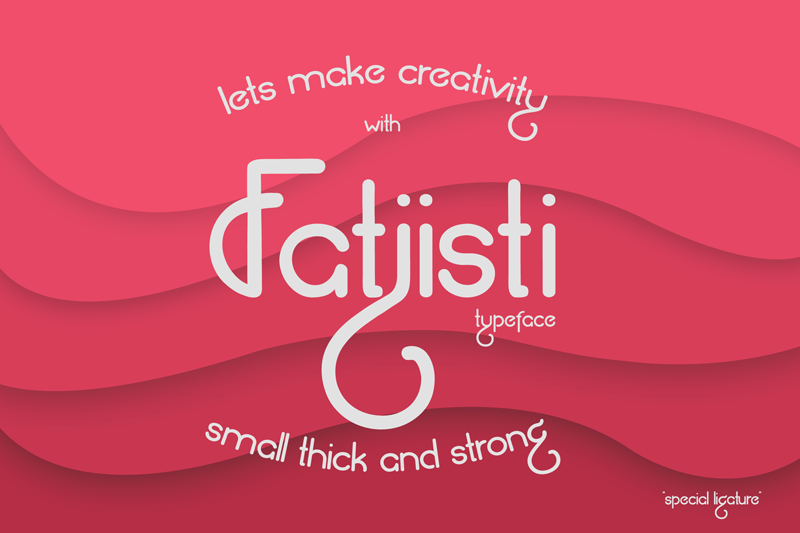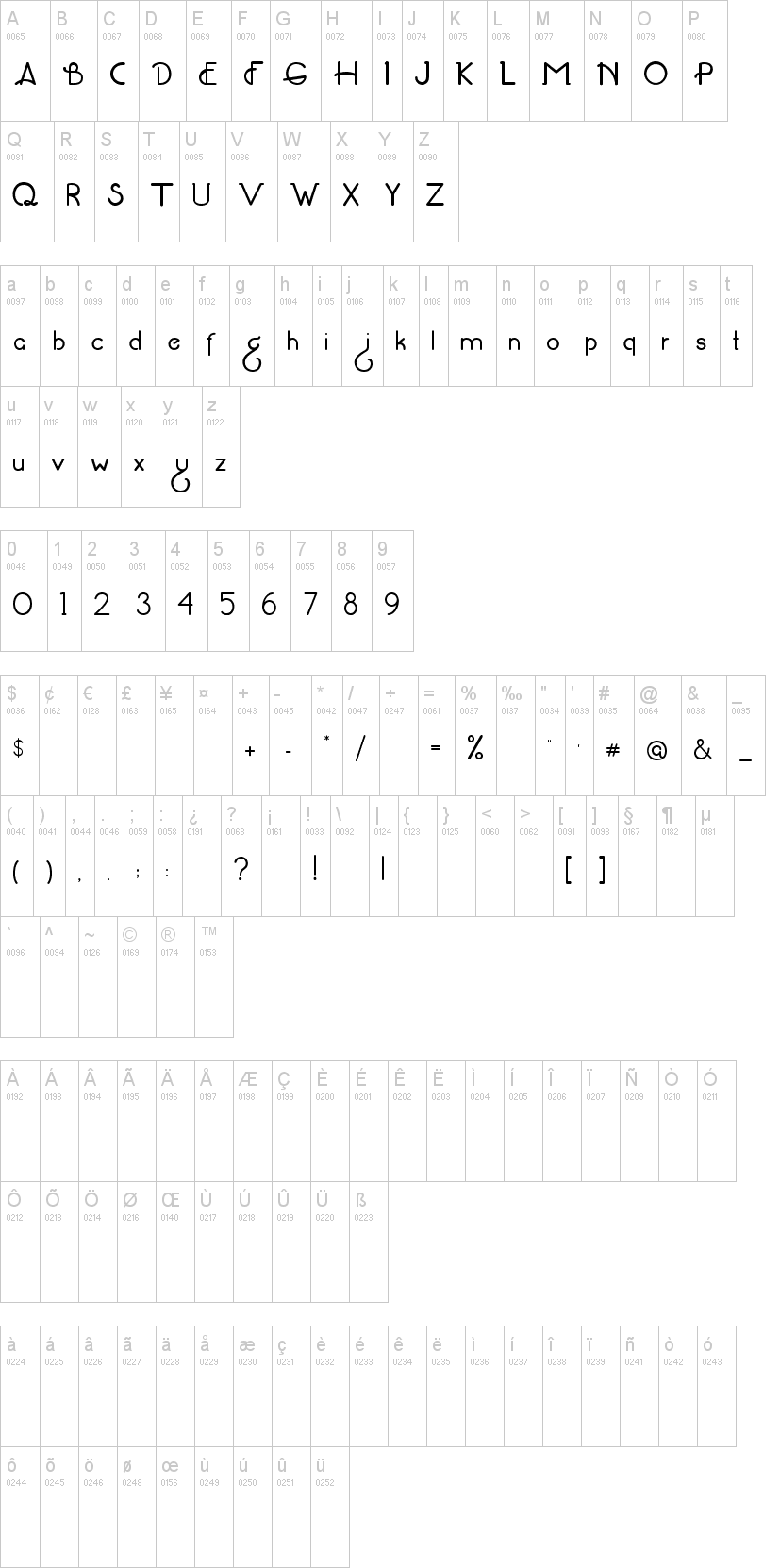
Fatjisti
Note of the authorfont these letters are small and thick, emphasizing each sentence perfect for , poster, logo, magazine, cover, banner, tshirt and headers, or even large-scale artwork.